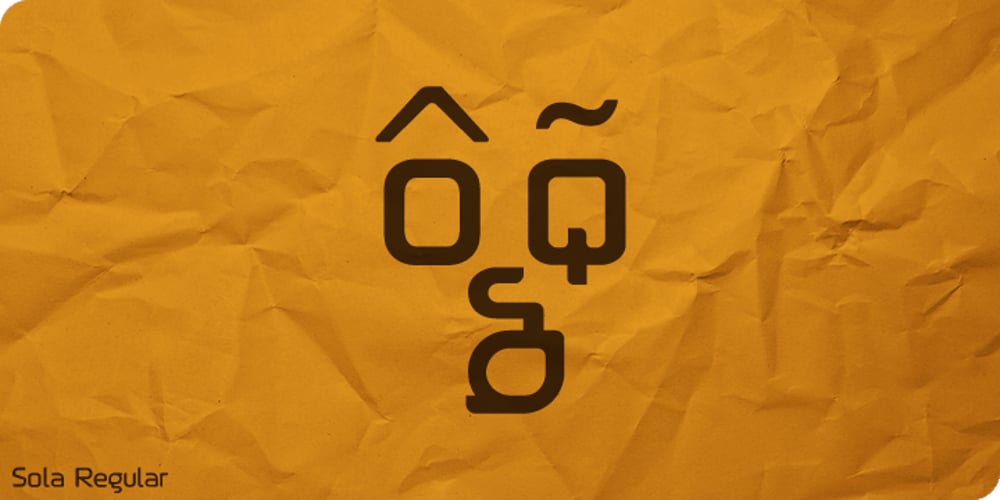
Sola
Sola font
Sola Font Family was designed by published by Khaito Gengo. Sola contains 1 styles and family package options. Sola is a simplistic, stylish, and modern san serif type font with the unique addition of rounded corners. When creating this font, Bank Gothic originally influenced me, however when I made the square shapes lower case the font didn’t retain its sophistication, so it was designed narrower. The result is this warm and soft looking font that works for all types of design, from posters and fliers to logos and business cards. Sola also features standard ligature, stylistic alternates, titling characters with extended width, and a set of standard pictograms.